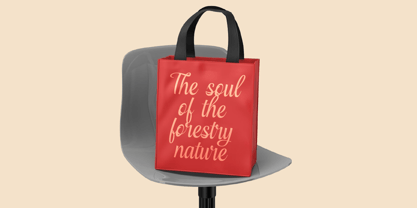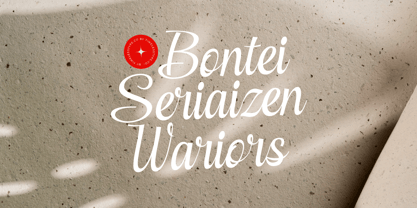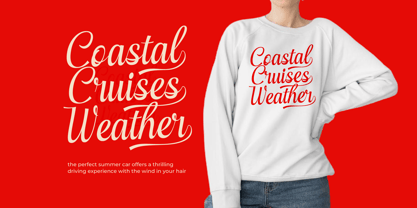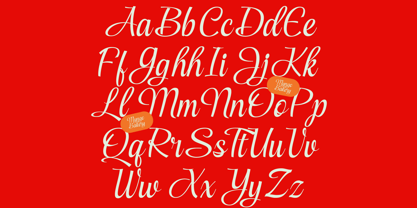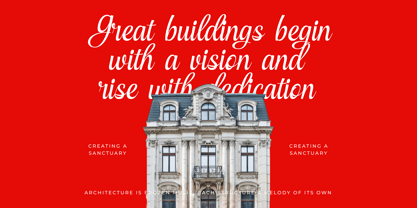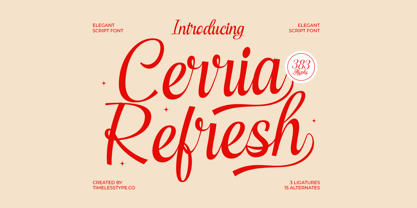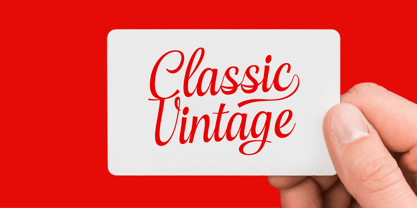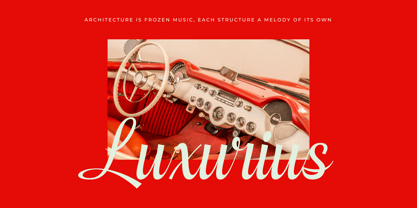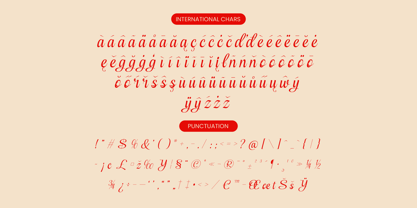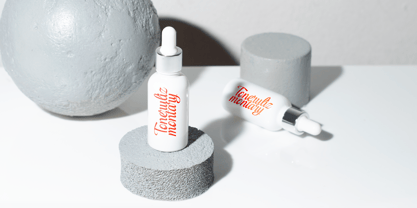
Cerria Refresh
The Cerria Refresh Font Family was designed by Heru Utama Putra and published by Timelesstype Studio. Cerria Refresh contains 2 styles and family package options.
Cerria Refresh - Elegant Script Font , from Timelesstype, Suitable for any projects such as: logos, branding projects, homeware designs, product packaging, mugs, quotes, posters, shopping bags, t-shirts, book covers, name card, invitation cards, greeting cards, label, photography, watermark, special events, and all your other luxury and beautiful projects that need a Luxury Script taste.